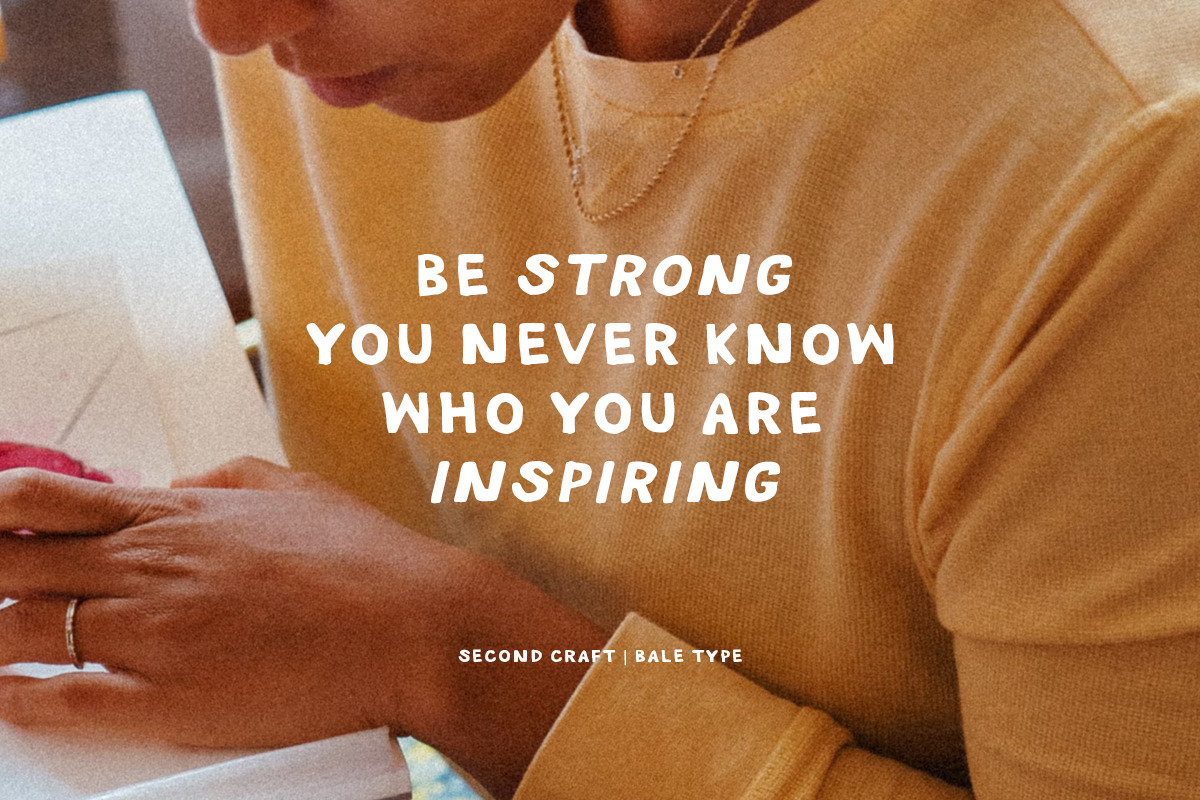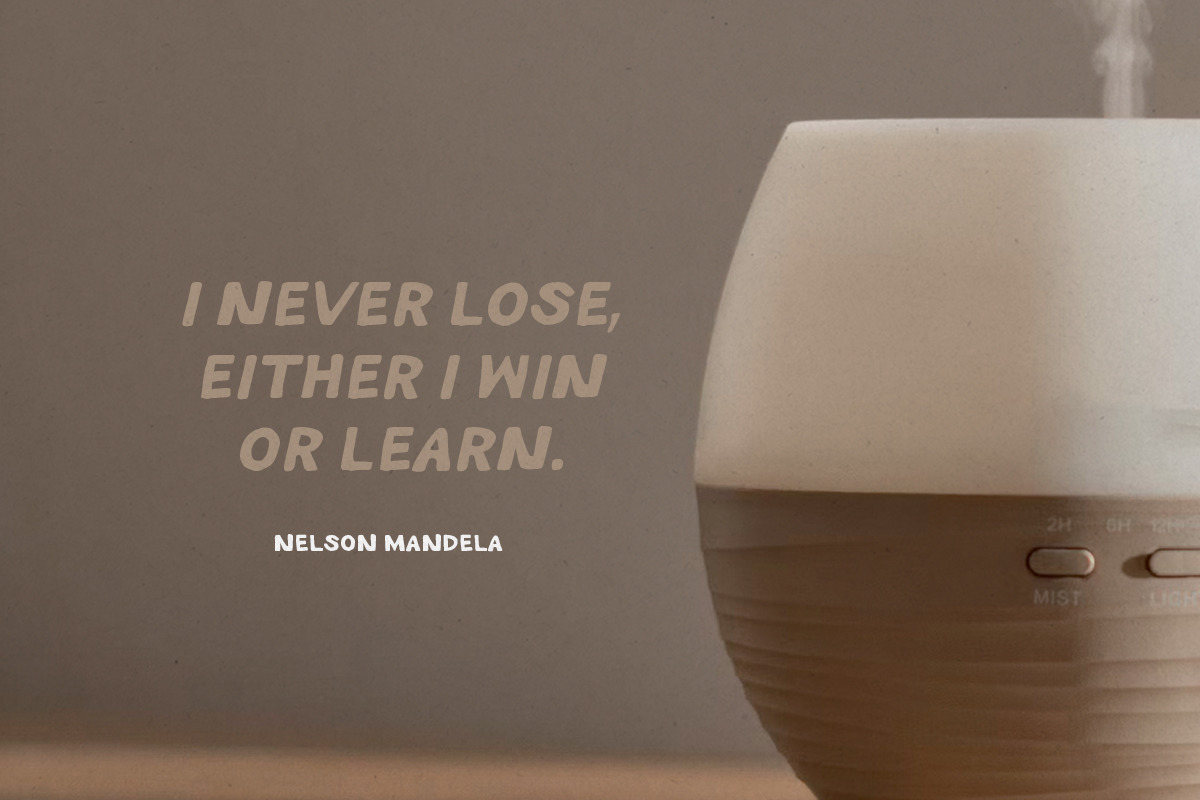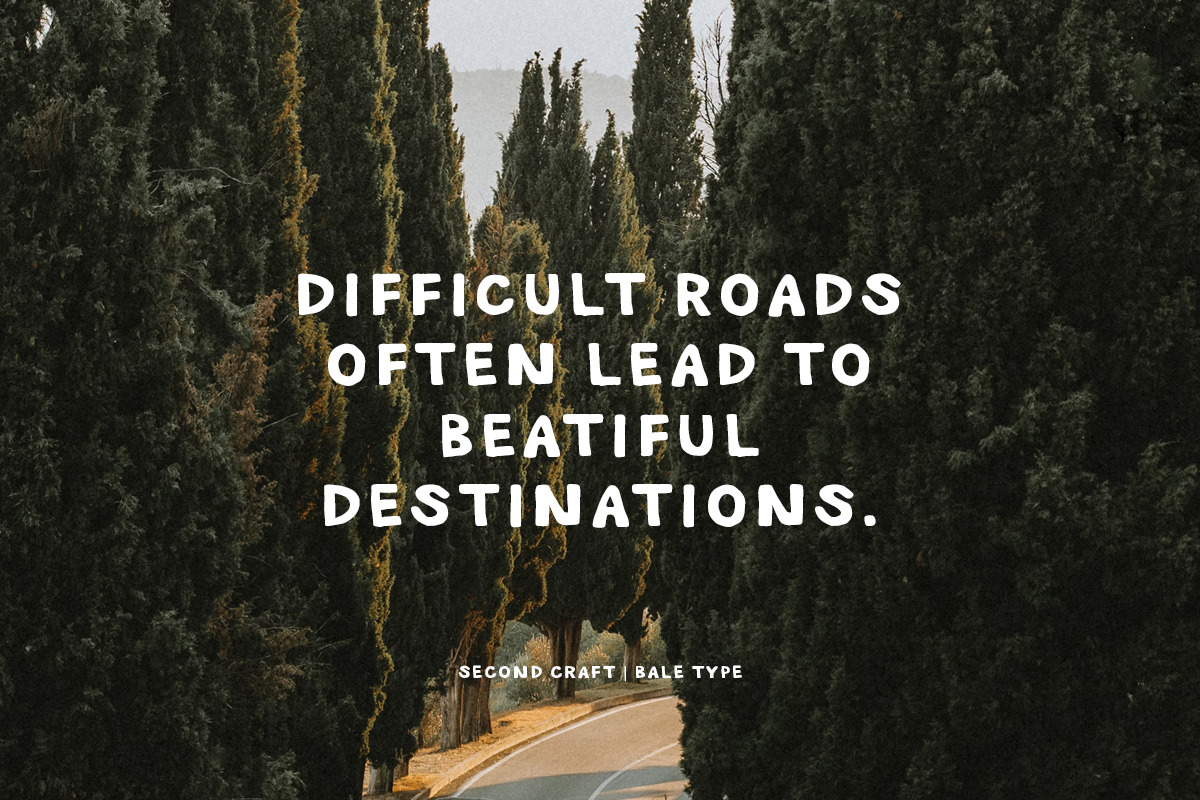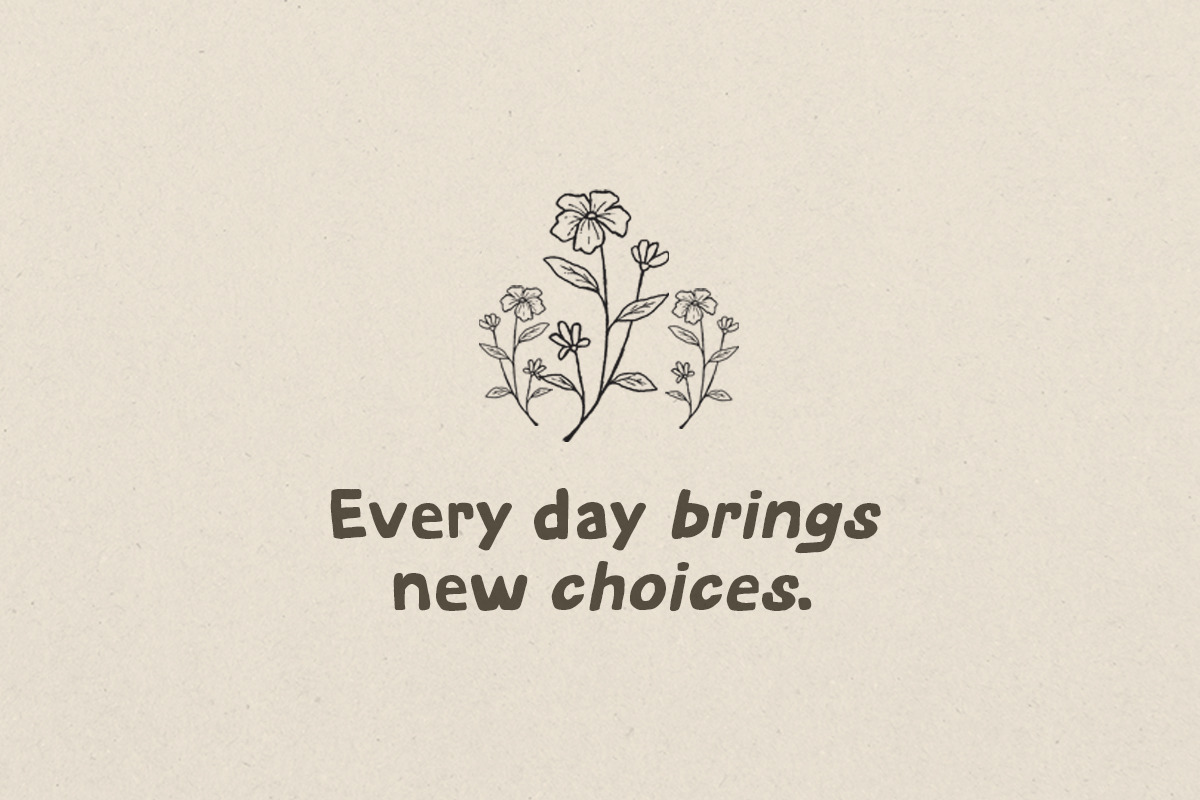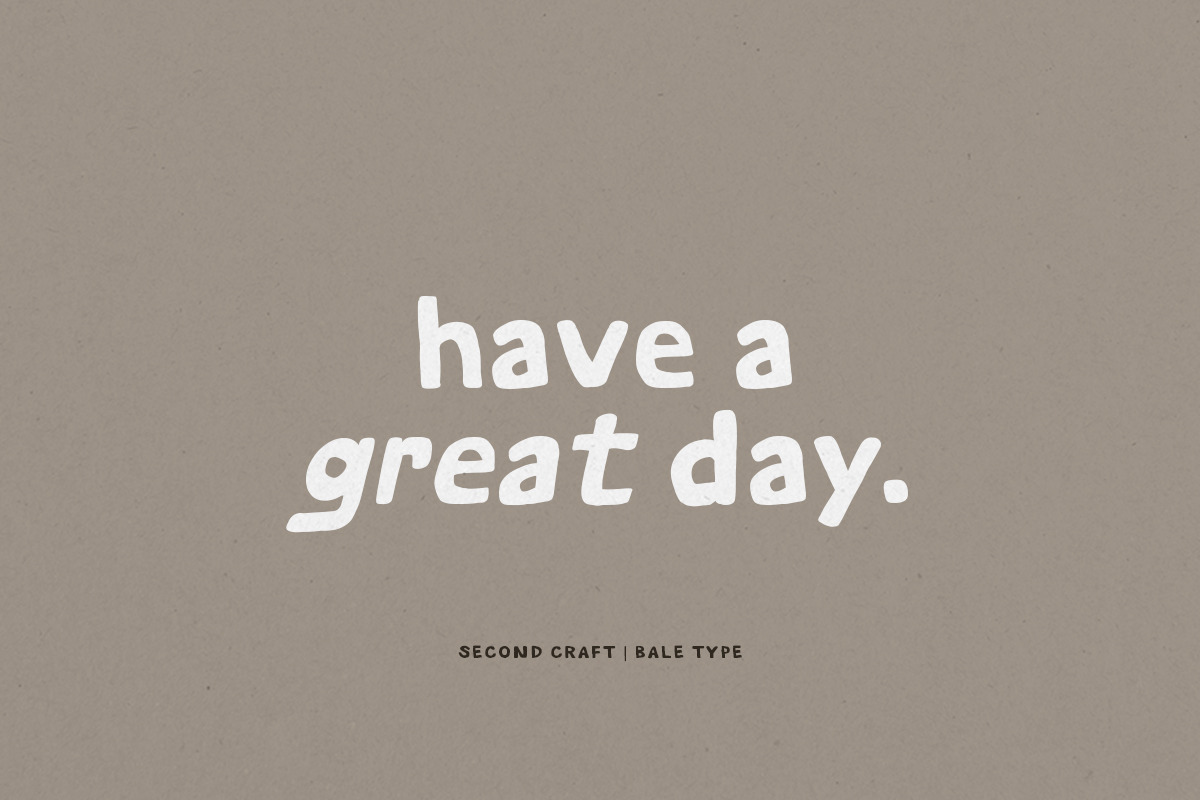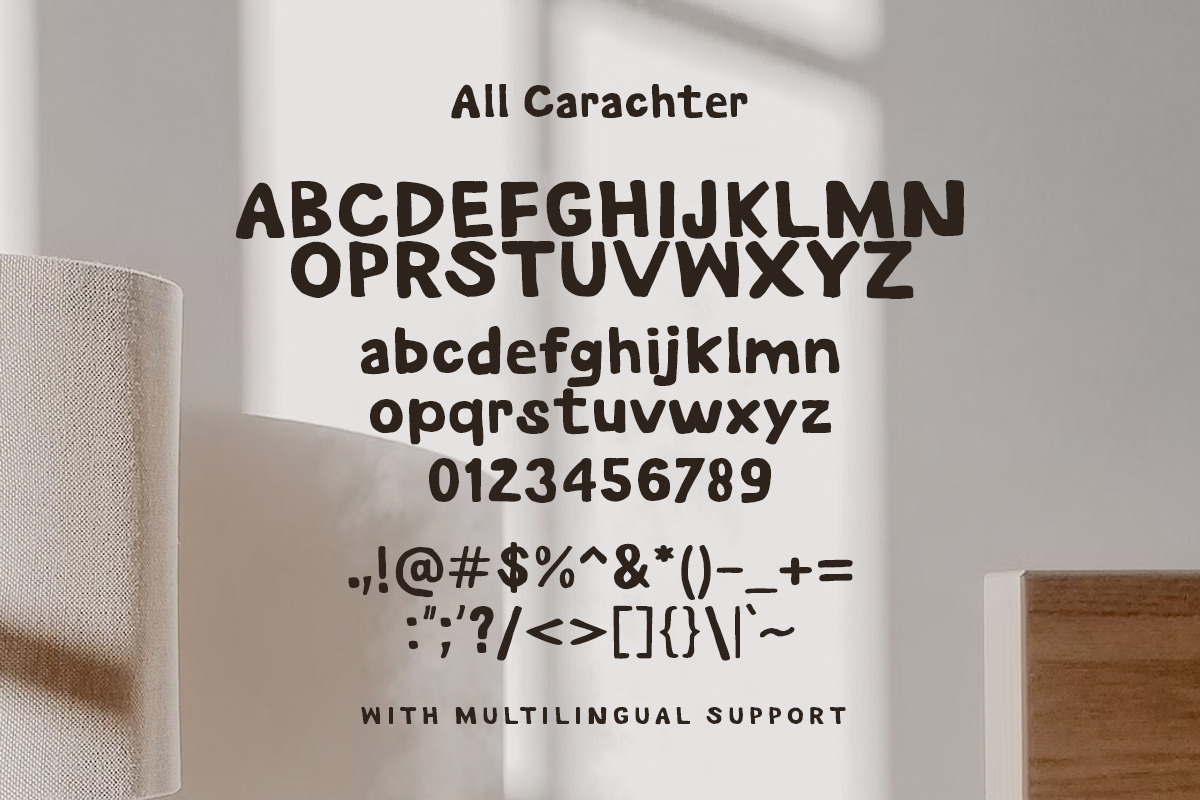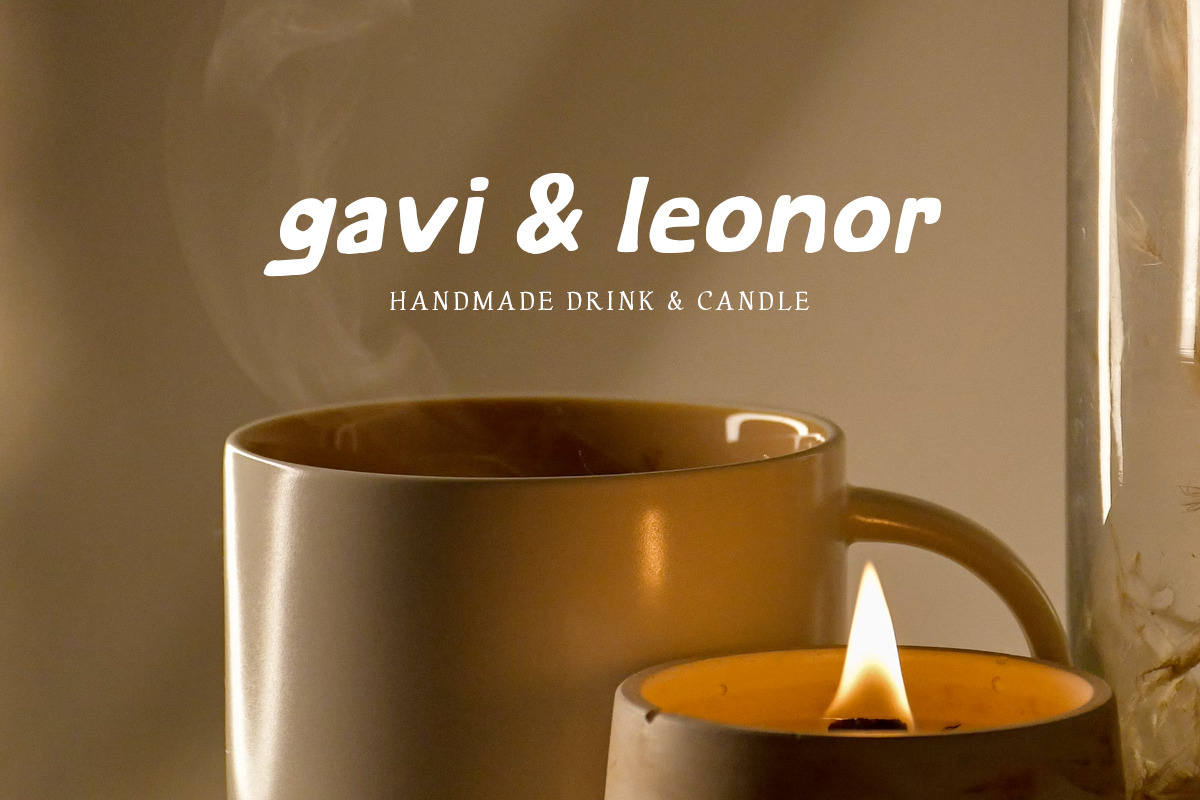
Second Craft - Handmade Bold Sans
Second Craft is a handmade bold font based on sans serif. With natural and hand-drawn looks, this font will make your design have an organic vibes. You can use this font for branding, logotype, and looks good for quotes. Second Craft also support multi language.